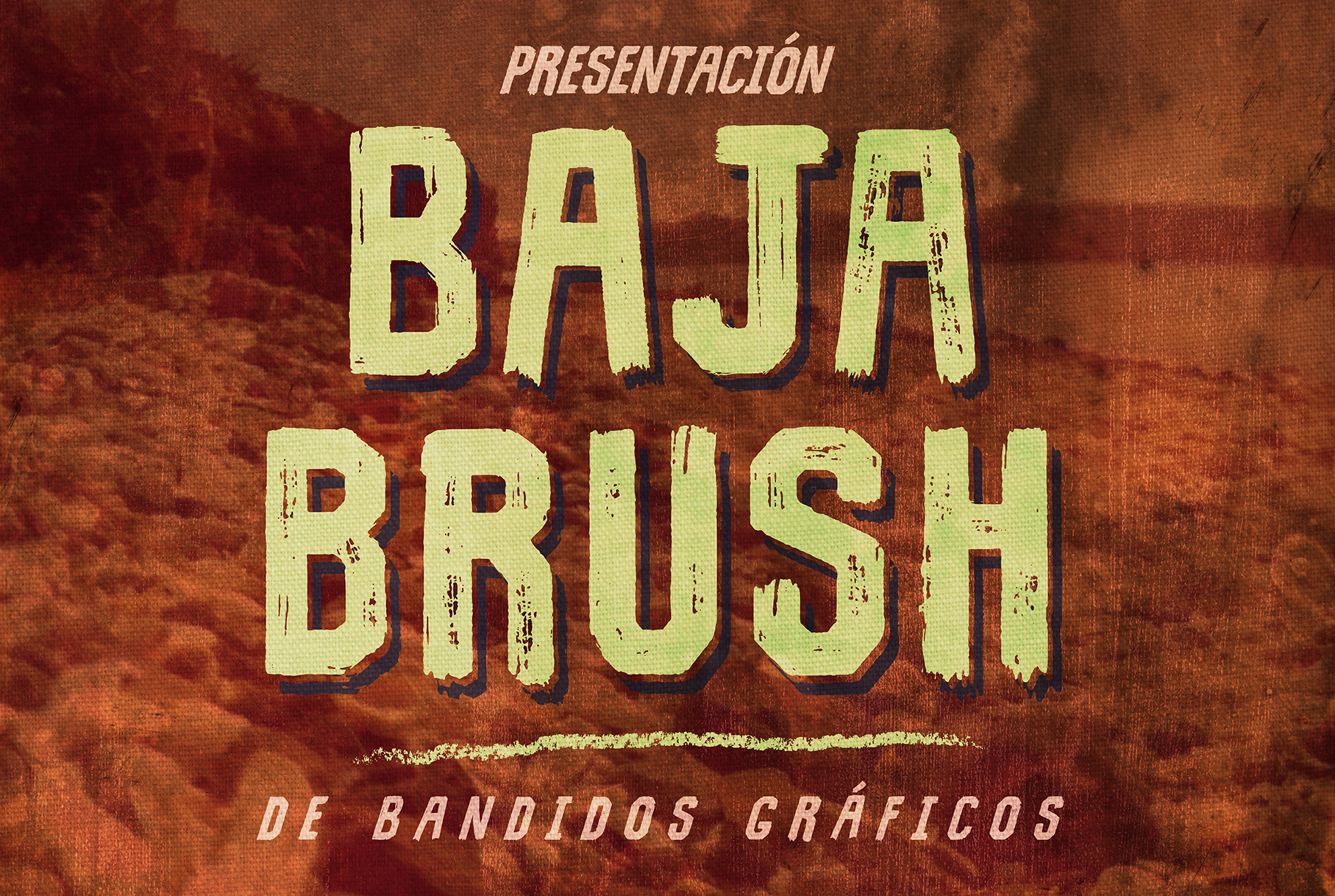
Baja Brush typeface
The inspiration for this typeface came from a trip to Baja, Mexico. Looking at all the hand-lettered signs for the local shops. This is a very versatile typeface. It can be used in vintage or contemporary designs. Works great on posters, signage, shirts, or any design project that calls for a rough, distressed, hand lettered look!